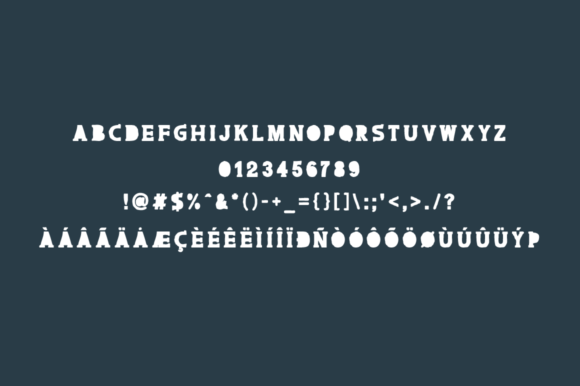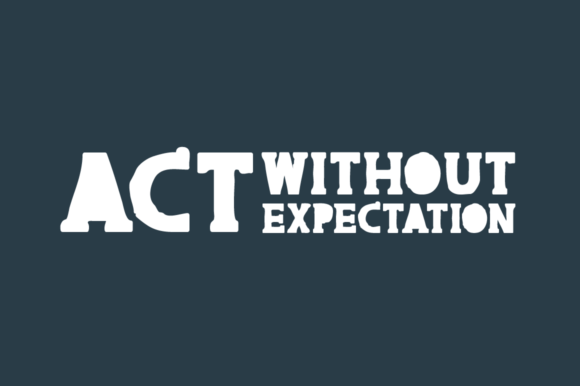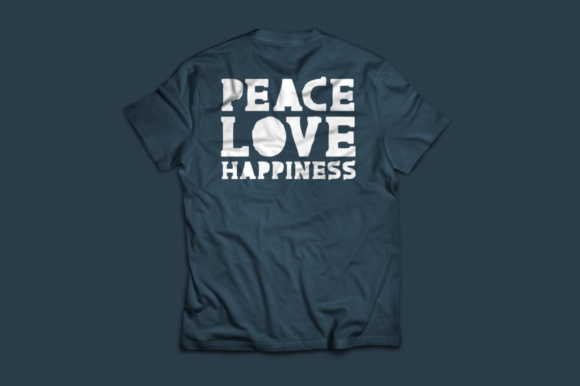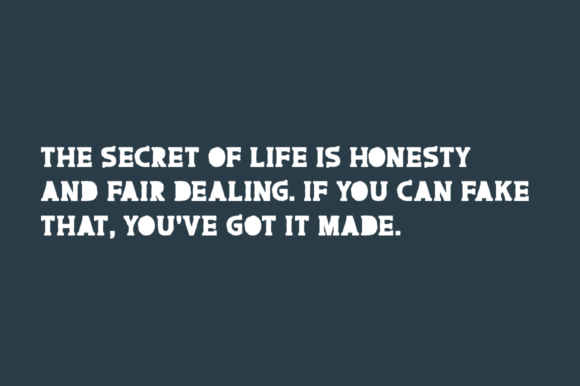
Introducing Caroos Next Font: The Ultimate Modern Display Font for Creative Projects
Are you a designer, craftsperson, or DIY enthusiast looking for a fresh and versatile font to elevate your creative projects? Look no further than Caroos Next Font, the latest addition to the world of modern display fonts. In this article, we’ll dive into the features, benefits, and uses of Caroos Next, and explore how it can take your designs to the next level.
What is Caroos Next Font?
Caroos Next is a brand new modern display font designed to make a statement. Its sleek, clean lines, and contemporary style make it perfect for a wide range of applications, from stationery and logos to t-shirts, papers, and print designs. Whether you’re a professional designer or a crafty DIY enthusiast, Caroos Next is an excellent choice for anyone looking to add a touch of modern sophistication to their creations.
Key Features of Caroos Next Font
- Modern and Fresh Design: Caroos Next boasts a modern and fresh design that’s sure to grab attention. Its clean lines, subtle curves, and balanced proportions make it a versatile font suitable for various design projects.
- Highly Versatile: Caroos Next is designed to be highly versatile, making it perfect for use in a variety of contexts, including stationery, logos, t-shirts, papers, print designs, website headers, photo frames, flyers, music covers, posters, image sliders, and more.
- Easily Readable: Despite its modern and sleek design, Caroos Next remains easily readable, even at smaller font sizes. This makes it an excellent choice for body text, headings, and titles.
- Supports Multiple Languages: Caroos Next supports multiple languages, making it an excellent choice for designers and crafters working on international projects.
Use Cases for Caroos Next Font
Caroos Next is an incredibly versatile font that can be used in a wide range of design projects, including:
- Stationery and Branding: Use Caroos Next to create professional-looking stationery, logos, and brand identities that exude modern sophistication.
- T-Shirts and Apparel: Caroos Next is perfect for designing t-shirts, hoodies, and other apparel items that require a modern and stylish font.
- Print Designs: Use Caroos Next in print designs, such as brochures, flyers, posters, and business cards, to add a touch of modern elegance.
- Website Headers and Titles: Caroos Next can be used to create stunning website headers, titles, and section headings that grab attention and elevate the user experience.
- Photo Frames and Collages: Add a modern touch to your photo frames and collages with Caroos Next, perfect for personal or professional projects.
Why Choose Caroos Next Font?
So, why should you choose Caroos Next Font for your design projects? Here are just a few reasons:
- Unique and Modern Design: Caroos Next boasts a unique and modern design that will set your projects apart from the crowd.
- Highly Versatile: Caroos Next can be used in a wide range of design projects, making it an excellent addition to your font library.
- Easily Customizable: Caroos Next is easily customizable, allowing you to adjust the font to suit your design needs.
| Font Name | Caroos Next Font |
In conclusion, Caroos Next Font is an exceptional modern display font that’s perfect for designers, craftspersons, and DIY enthusiasts looking to elevate their creative projects. Its sleek design, versatility, and readability make it an excellent choice for a wide range of applications. Whether you’re working on stationery, logos, t-shirts, print designs, or website headers, Caroos Next is sure to impress. So why wait? Download Caroos Next Font today and take your designs to the next level!